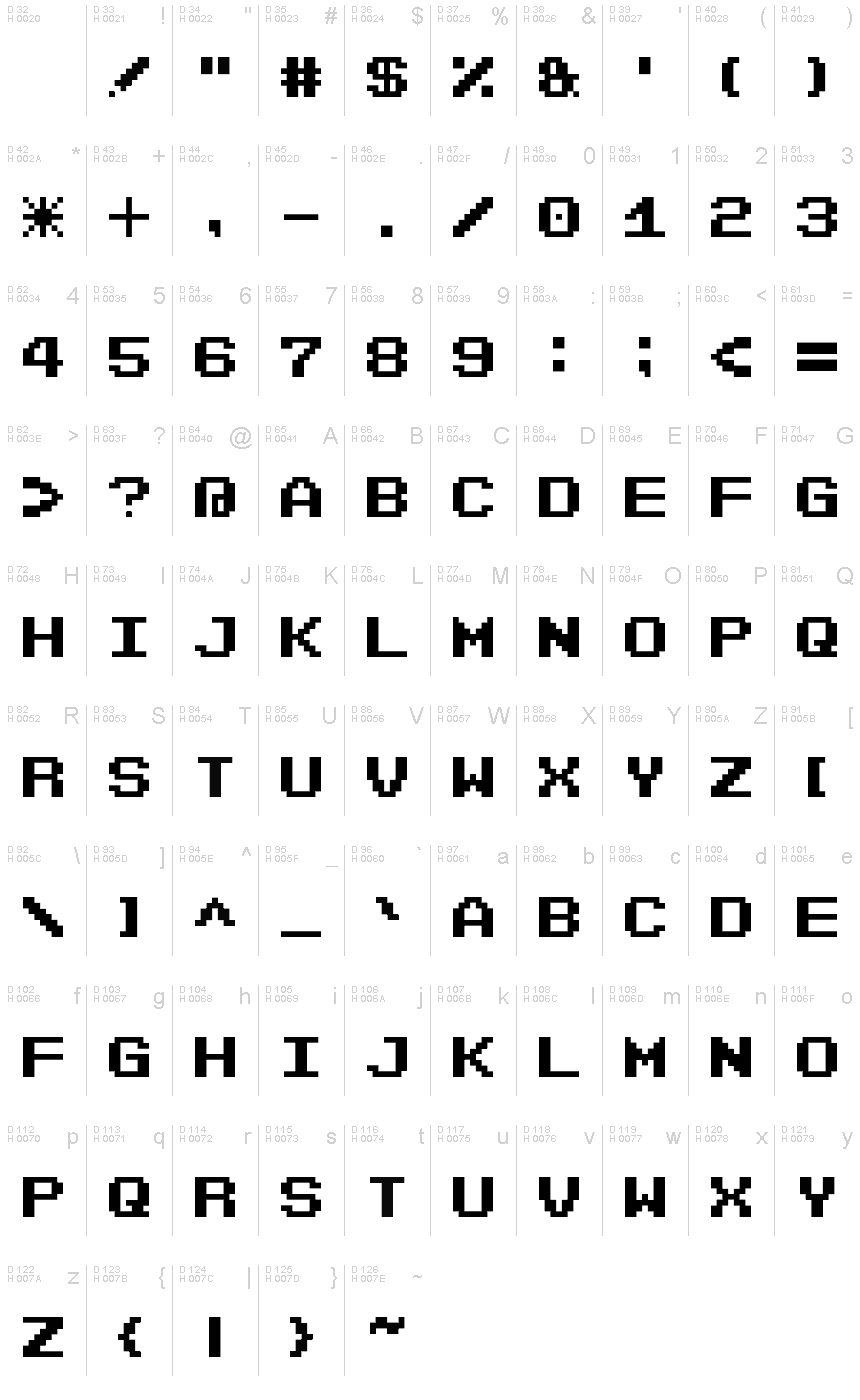
Barcade Brawl Regular
Designer description: Font from the ingame marquee display of "Barcade Brawl", a 2015 game by yours truly. This was made to look similar to the system fonts from old arcade boards, PC microsystems, etc. You've probably seen the fonts I'm talking about; they're everywhere and many people refer to them singularly as "the arcade font" or "the NES font".
This is 7x7 with no wasted matrix, but it looks better without monospacing since not every glyph is the same width. It also makes a decent terminal & chat font, at least for those who don't care about the case of the messages they read and write.
Original size: 5.25pt (use multiples of this size for pixel perfection)